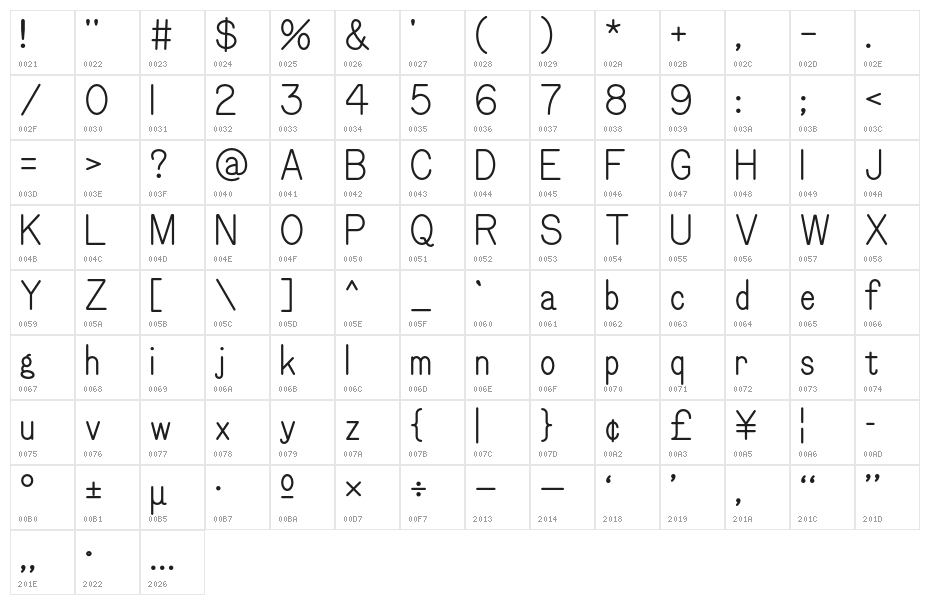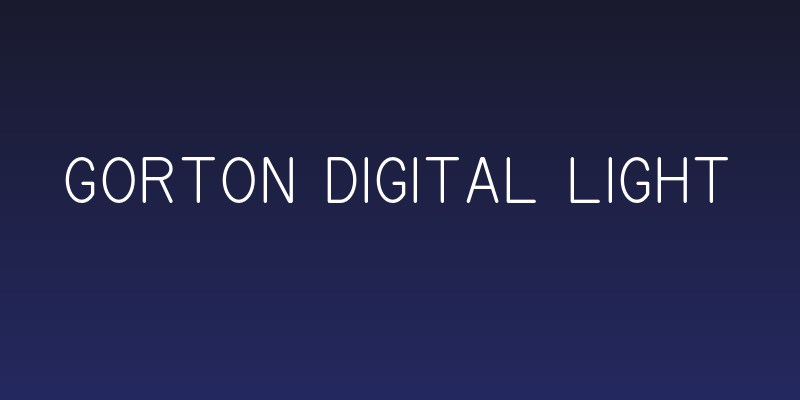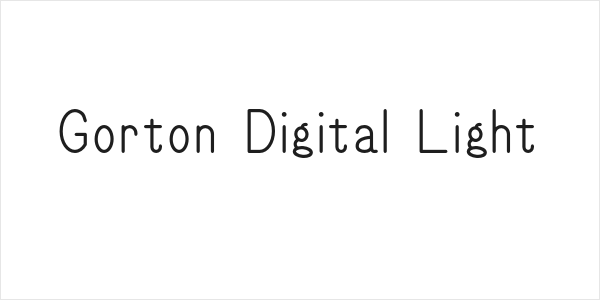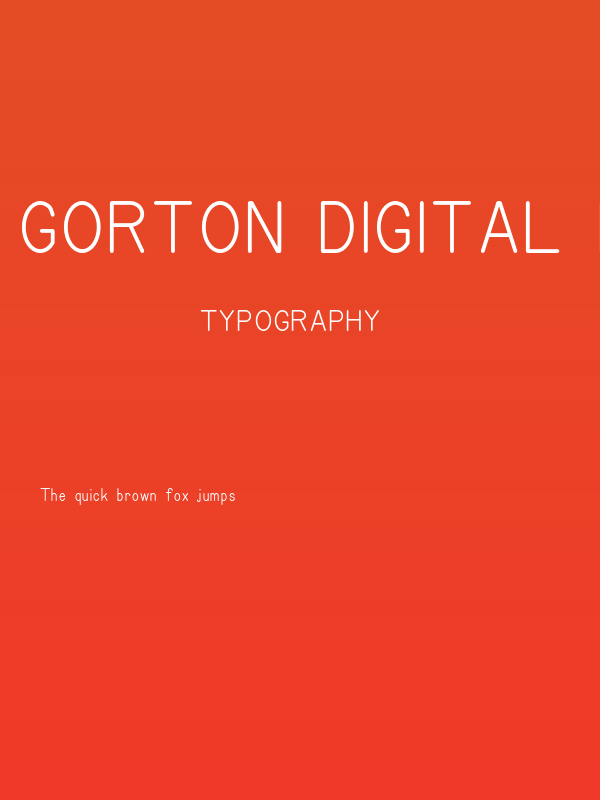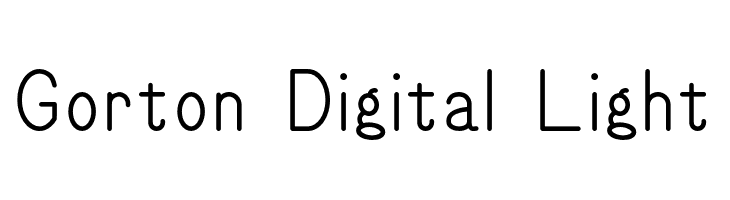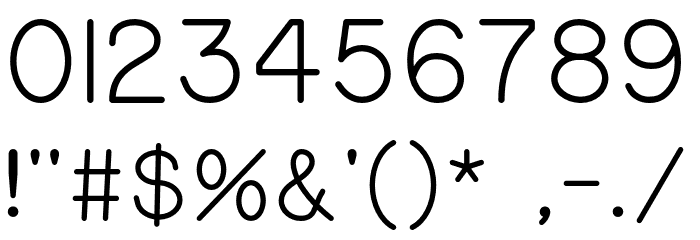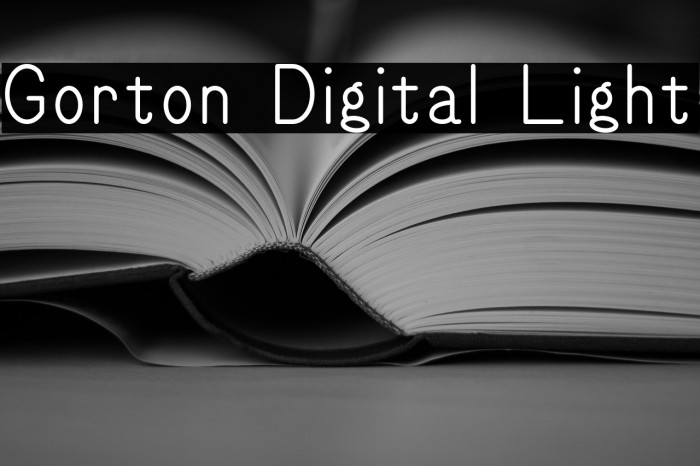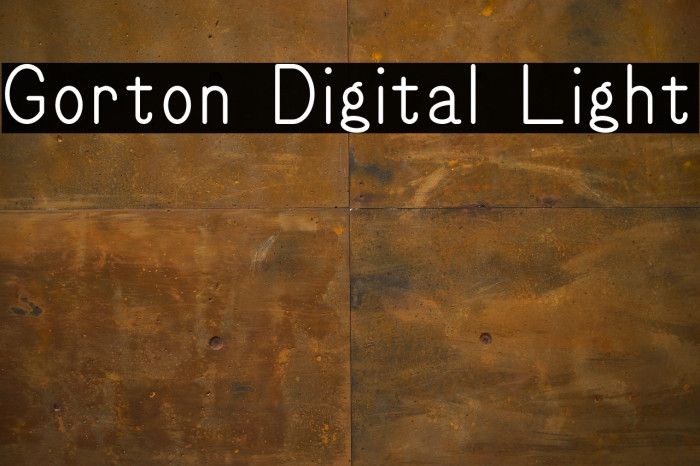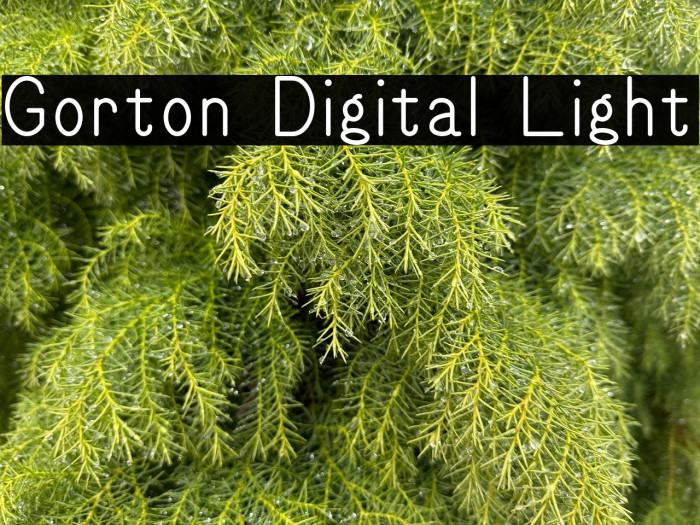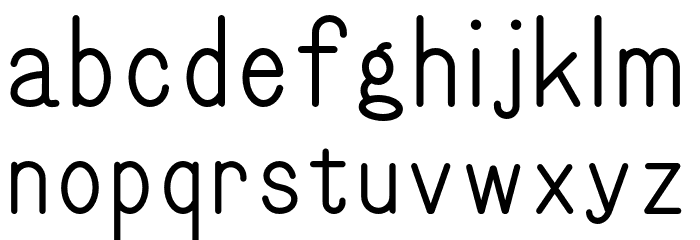
Gorton Digital Light Font
A revival of a 20th century interwar typeface. In the early- to mid-20th century, the George Gorton Machine Company made engraving machines (among other machines).